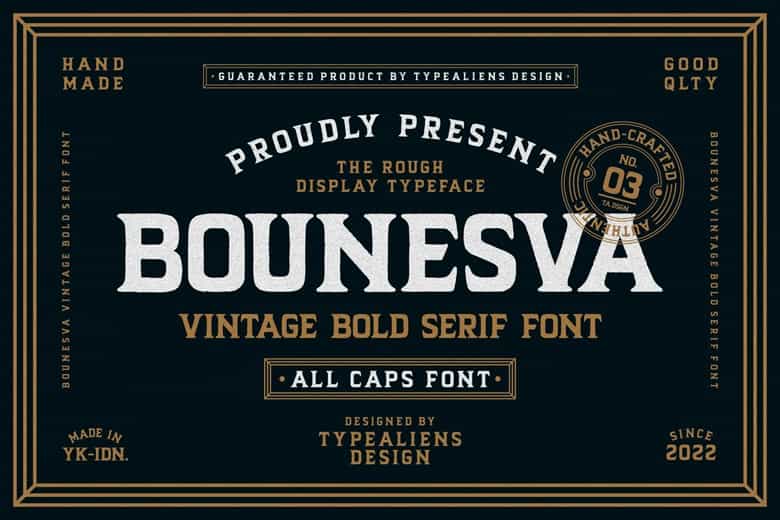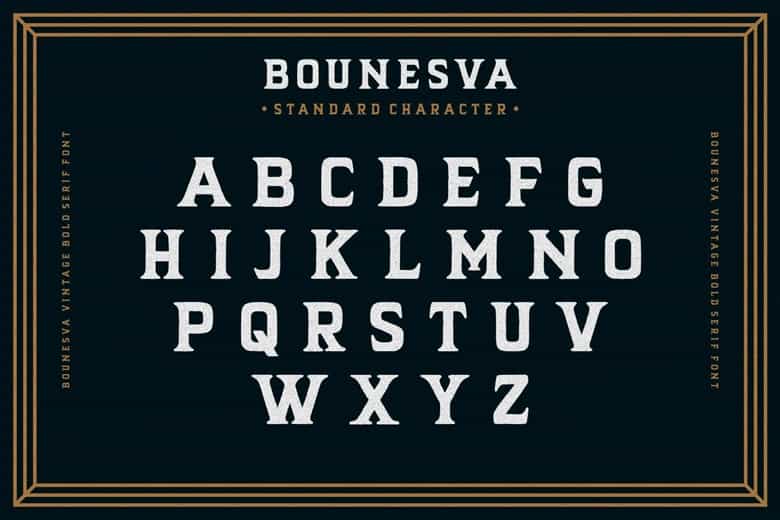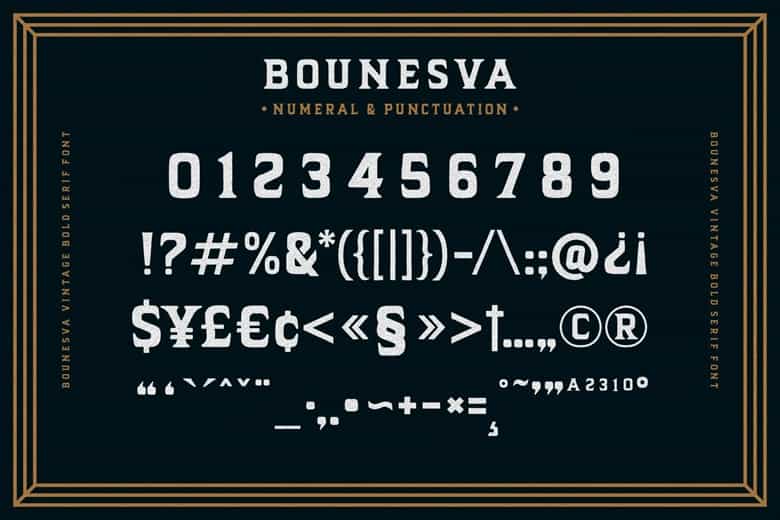
Bounesva is a capitalized bold serif font that is ideal for motorcycle and retro styles motifs. A rather plain font with not much deviation from the serifs of old times. Only one thick feature and the hook is a little fat.